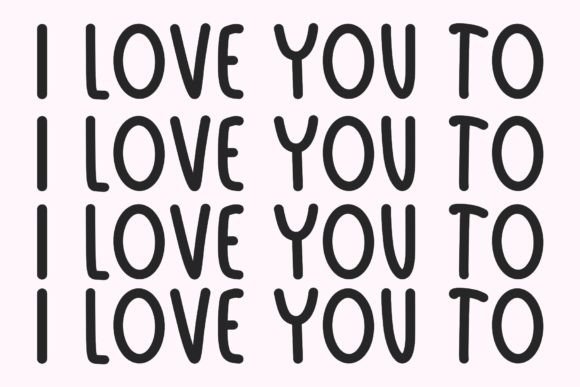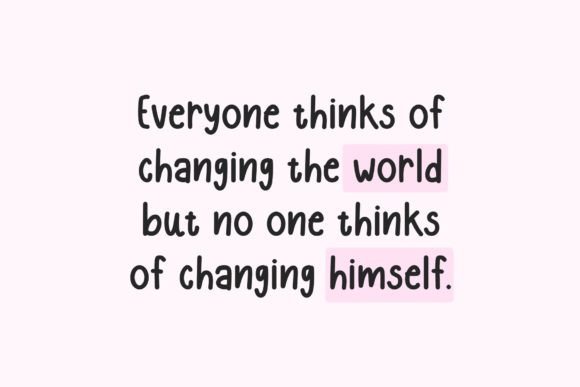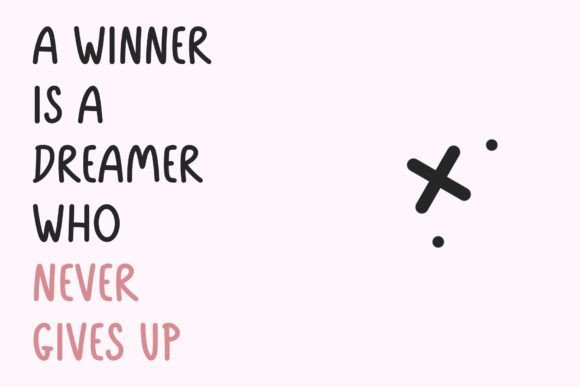
Easy Write Font
Easy Write is a sweet and friendly handwritten font. Its natural and unique style makes it incredibly fitting to a large pool of designs. The only limit is your imagination!